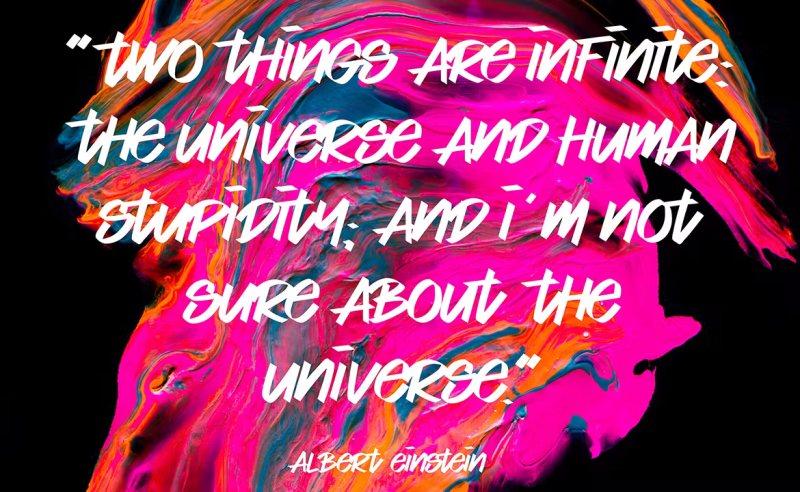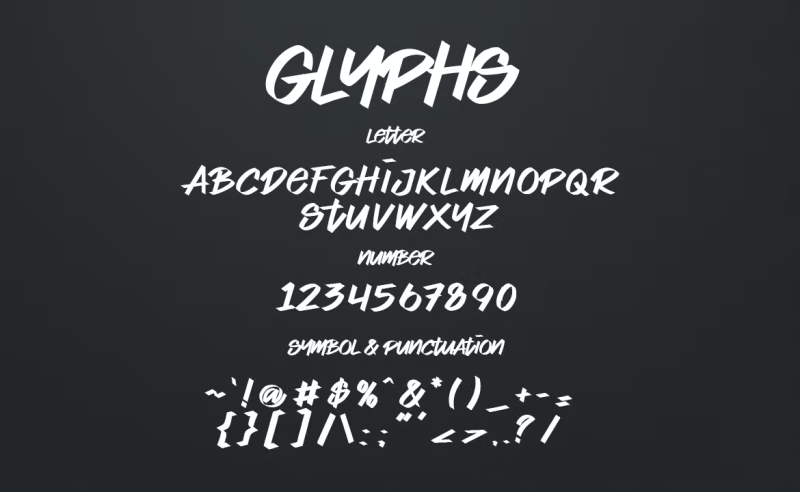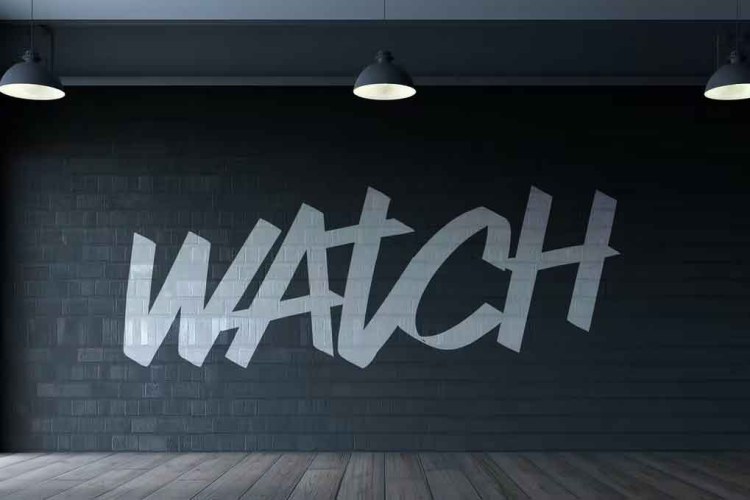
Watch Font
Wallsmith is a font that inspired by the marker typeface and grafiti style. Suitable for headline, poster design, t-shirt cd cover album or something that need grafiti style.
Where Watch Font works best
A short phrase in Watch Font carries warmth that a typeset sans cannot fake; keep the rest of the card plain.
Chalkboard-style headings in Watch Font make a menu feel hand-made. Keep the dish descriptions in a simple face so prices stay readable.
One line of Watch Font over a photo is enough; the script carries the tone and the caption does the work.
What kind of work does Watch Font suit?
It sits in the Script And Handwritten group and reads as handwritten, music, script, script and handwritten. That makes it a candidate wherever those qualities help: headings, packaging, social graphics and brand work. Set it at the size you plan to use before deciding.